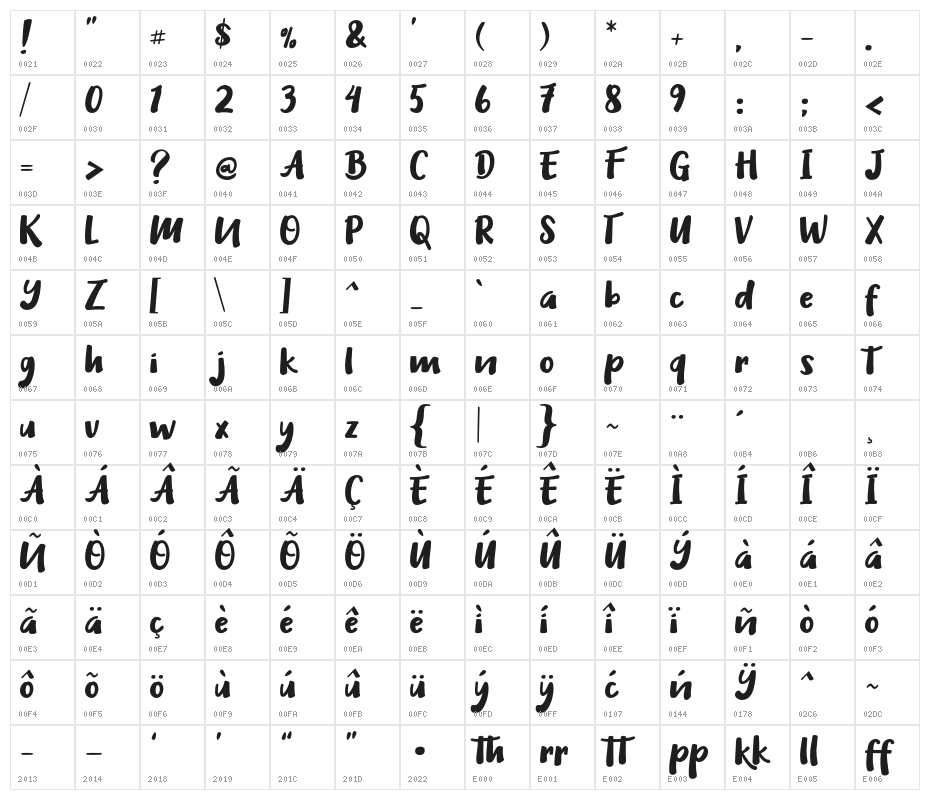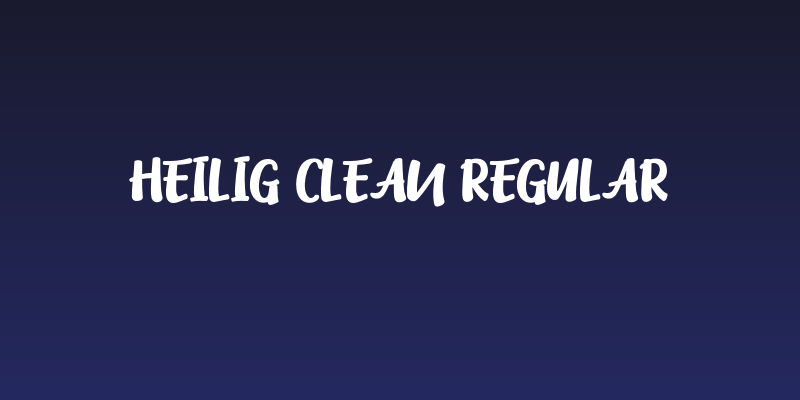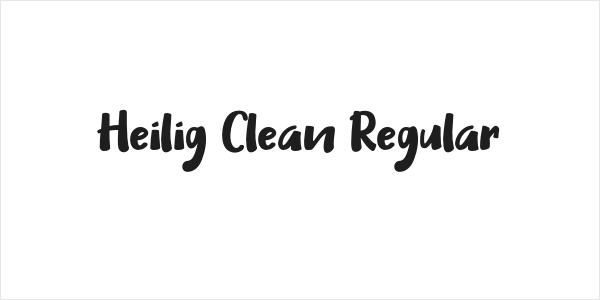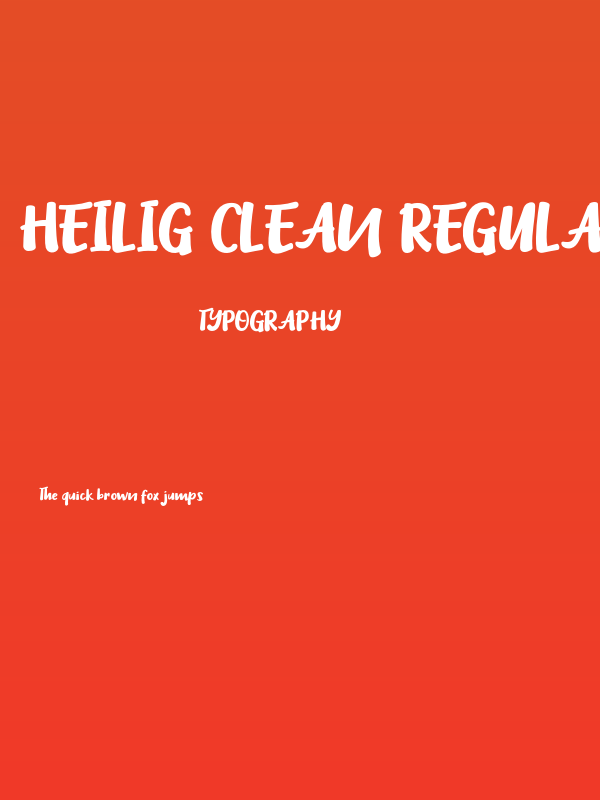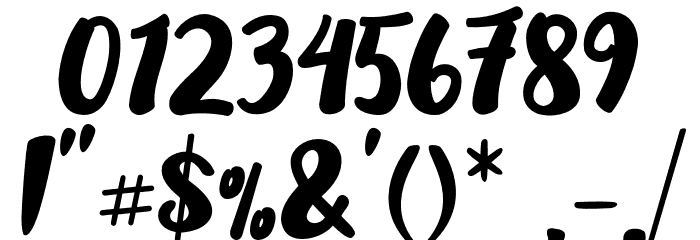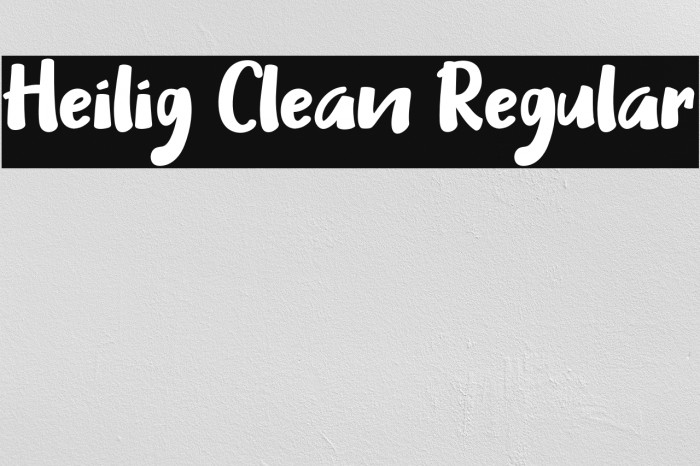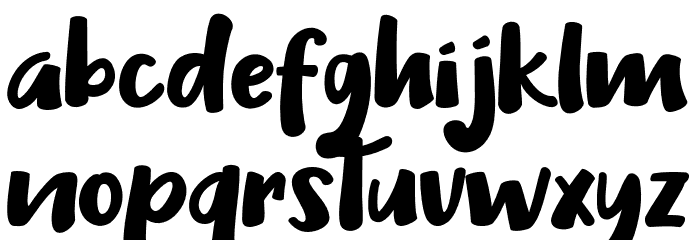
Heilig Clean Regular Font
Heilig Clean Regular Description
This font features a bold and expressive style with a handwritten appearance. The letters are thick and rounded, giving a playful and energetic feel. The uppercase and lowercase characters maintain a consistent flow, with slight variations that add to the font's charm. The numbers and special characters are equally bold, ensuring readability and a cohesive look across all elements. The font's design is suitable for projects that require a lively and informal touch, making it ideal for creative and artistic applications.
| Proposed Projects | Ideal for posters, greeting cards, branding, and social media graphics that require a lively and informal touch. |